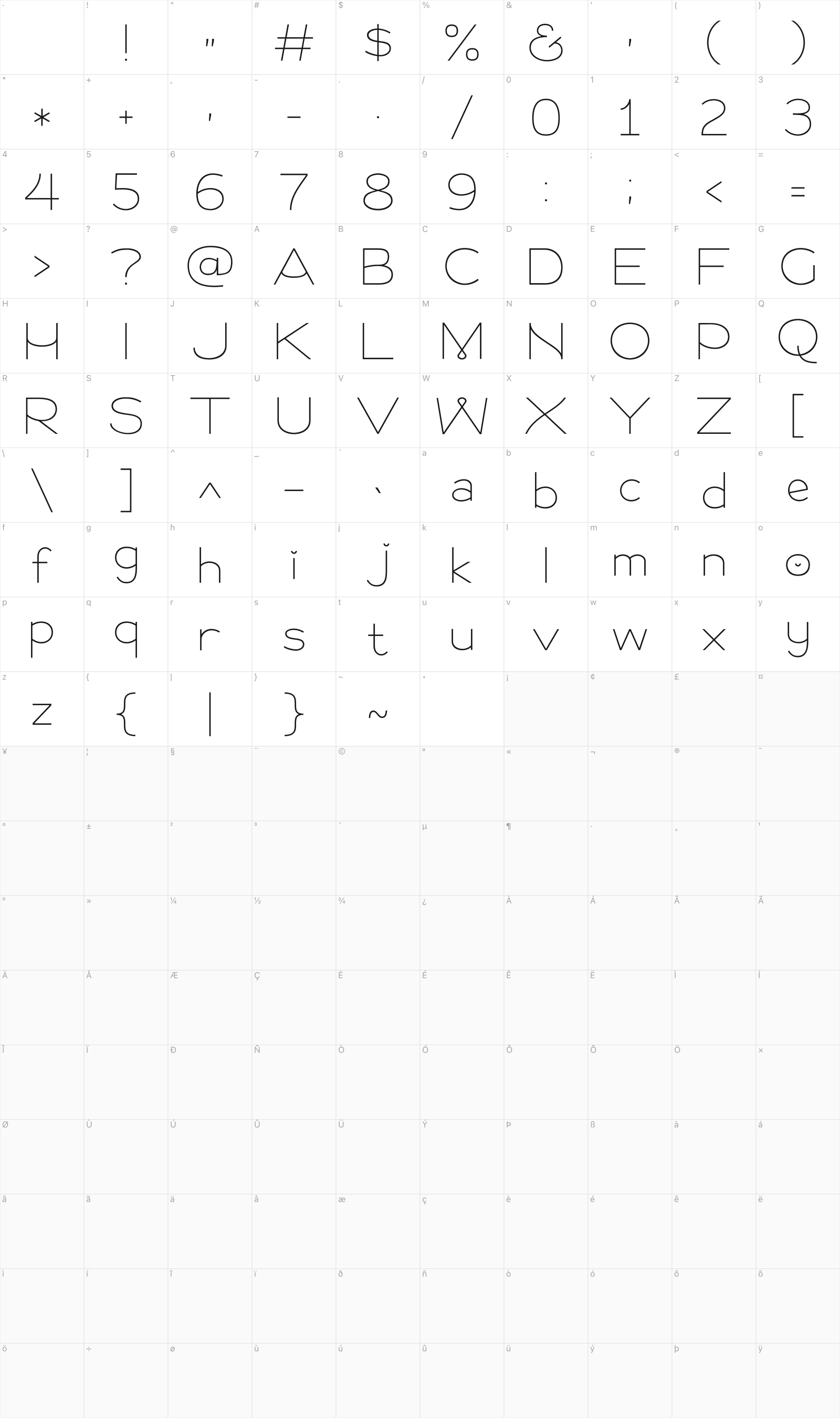
Mores
Mores is an ultra-thin geometric sans with hairline strokes and wide, circular proportions. The near-zero stroke contrast and open apertures give it a quiet elegance that works well in luxury branding, editorial headers, and packaging. It is distinctly a display weight, best appreciated at large sizes where its delicate construction can breathe.